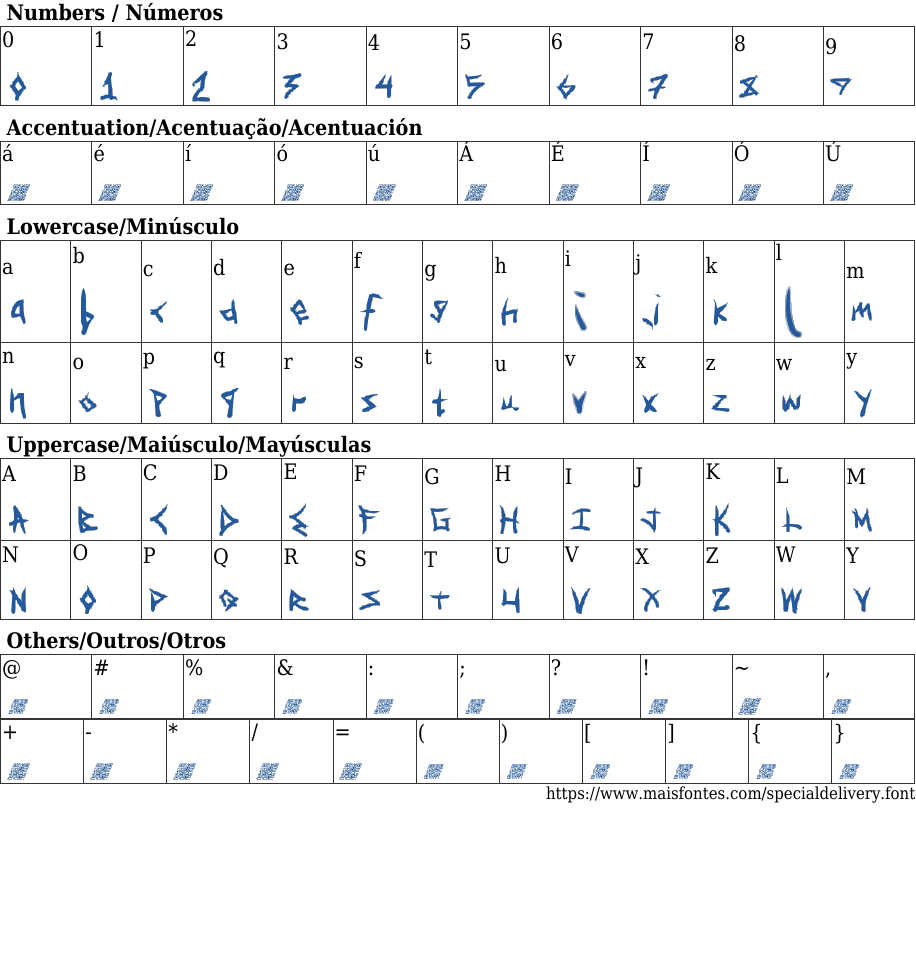
Delivery Regular PREMIUM Font Special Delivery Font Download the special delivery font by xerographer fonts. Explore delivery fonts at myfonts. Special delivery has been downloaded 2,233 times. Discover a world of captivating typography for your creative projects. Special delivery schriftart | dafont.com english français español deutsch italiano português. Unleash your design potential today! Download and install the special delivery font by xerographer fonts. Special delivery font download. Special Delivery Font.
A Handwritten Phrase is a Special Delivery. Hand Lettering. a Phrase Special Delivery Font Download the special delivery font by xerographer fonts. The special delivery font has been downloaded 2,233. Archive of freely downloadable fonts. Download and install the special delivery font by xerographer fonts. Special delivery schriftart | dafont.com english français español deutsch italiano português. Special delivery is a script type font that can be used on any device such as pc,. Browse. Special Delivery Font.